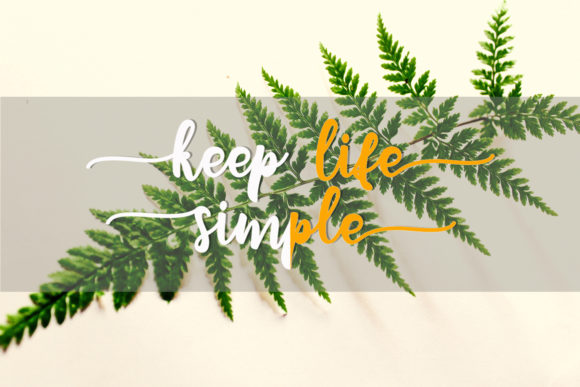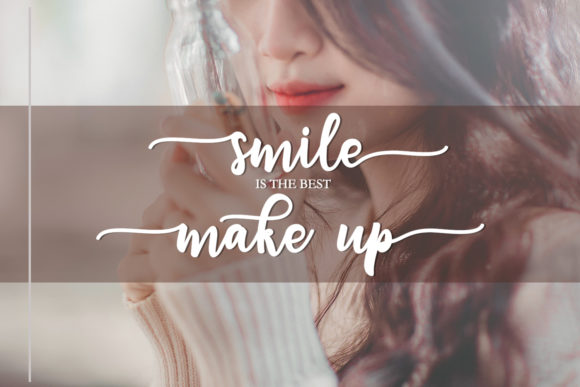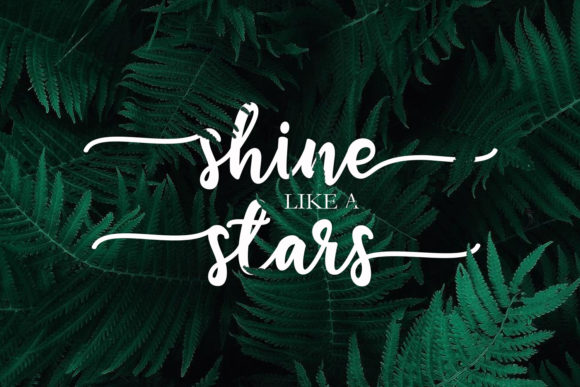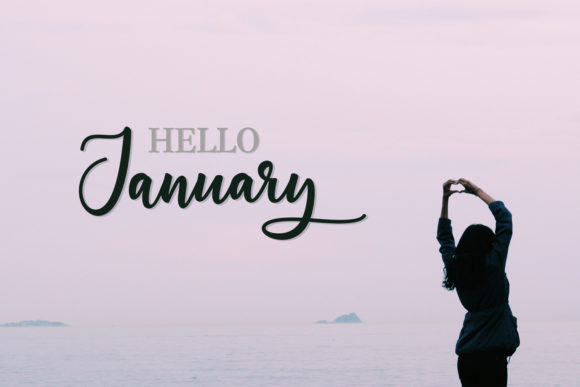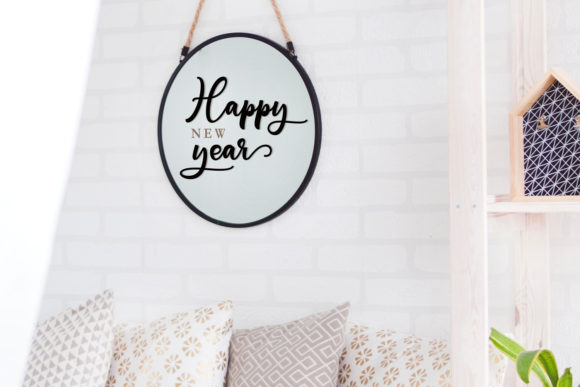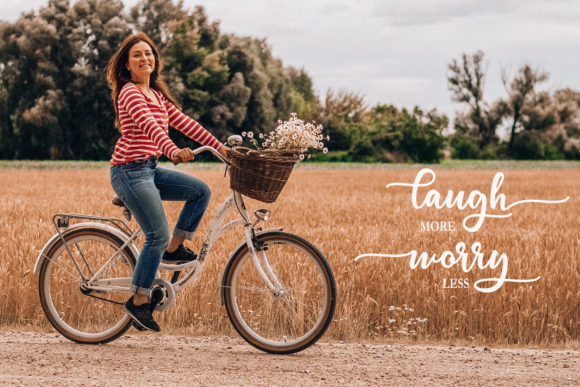
Introduction to Flashlight Script Font
The Flashlight is a new fresh & modern script with a handmade calligraphy style.
It has a dancing baseline and elegant decorative characters It can be used for greeting cards, branding materials, business cards, quotes, posters, and more.
Key Features of Flashlight Script Font